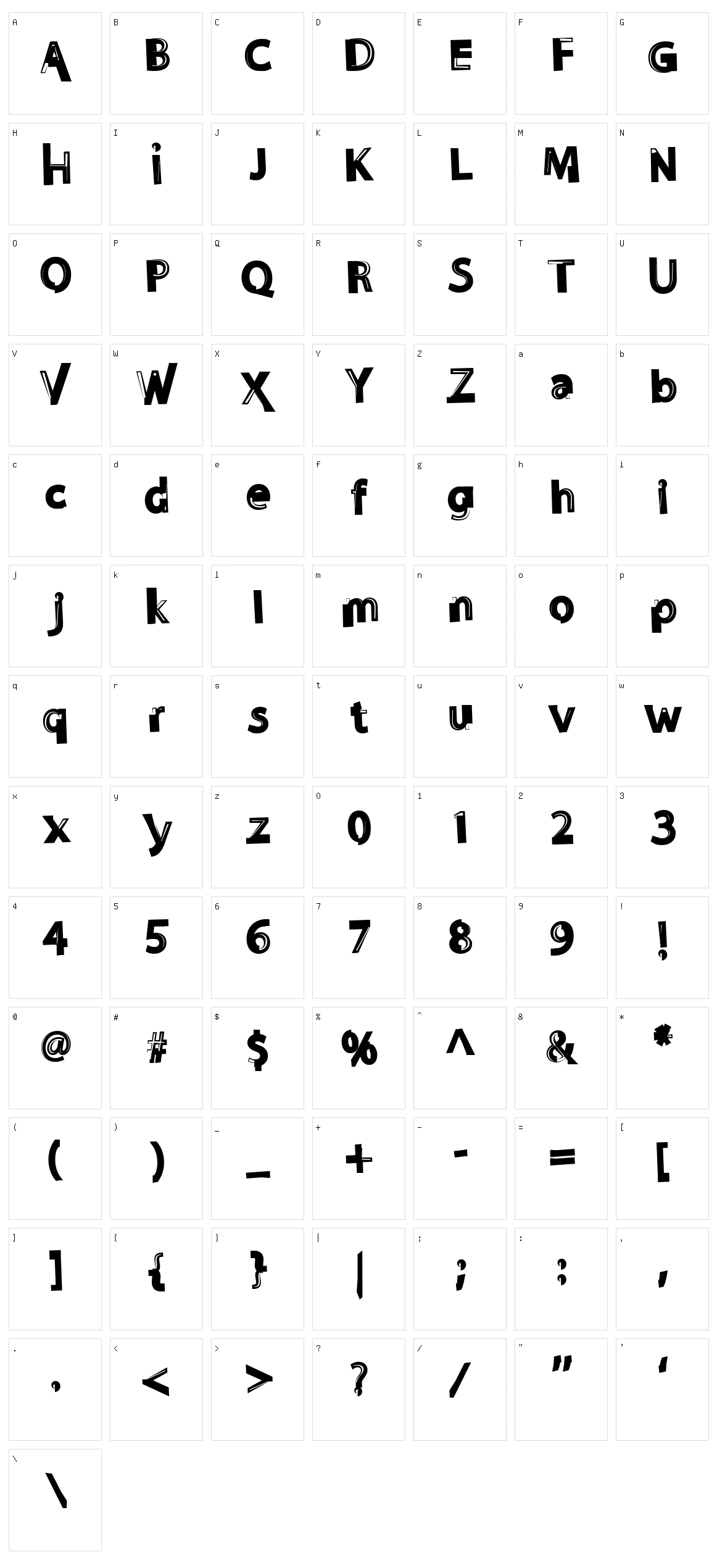
The free font NoSense is carefully designed by Canale Studio, Inc., showcasing a thoughtful balance of creativity and usability and falls under the Distorted font style. When you download the ZIP file, it contains only 30.84 KB of font files, making it lightweight and quick to download. Please review the license details below to understand permitted usage and distribution rights. If license information is not available, we recommend using this font for personal projects only or contacting the author directly for commercial usage permissions.